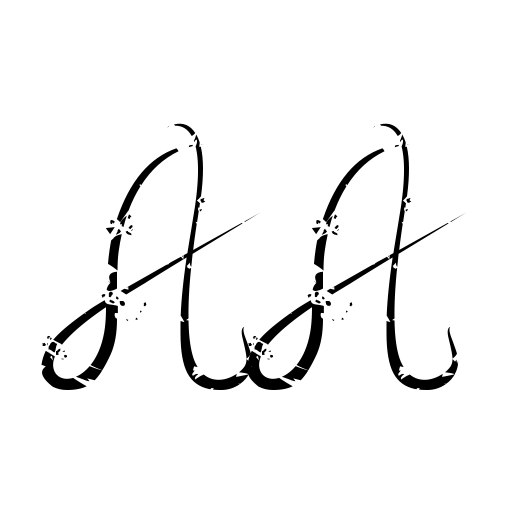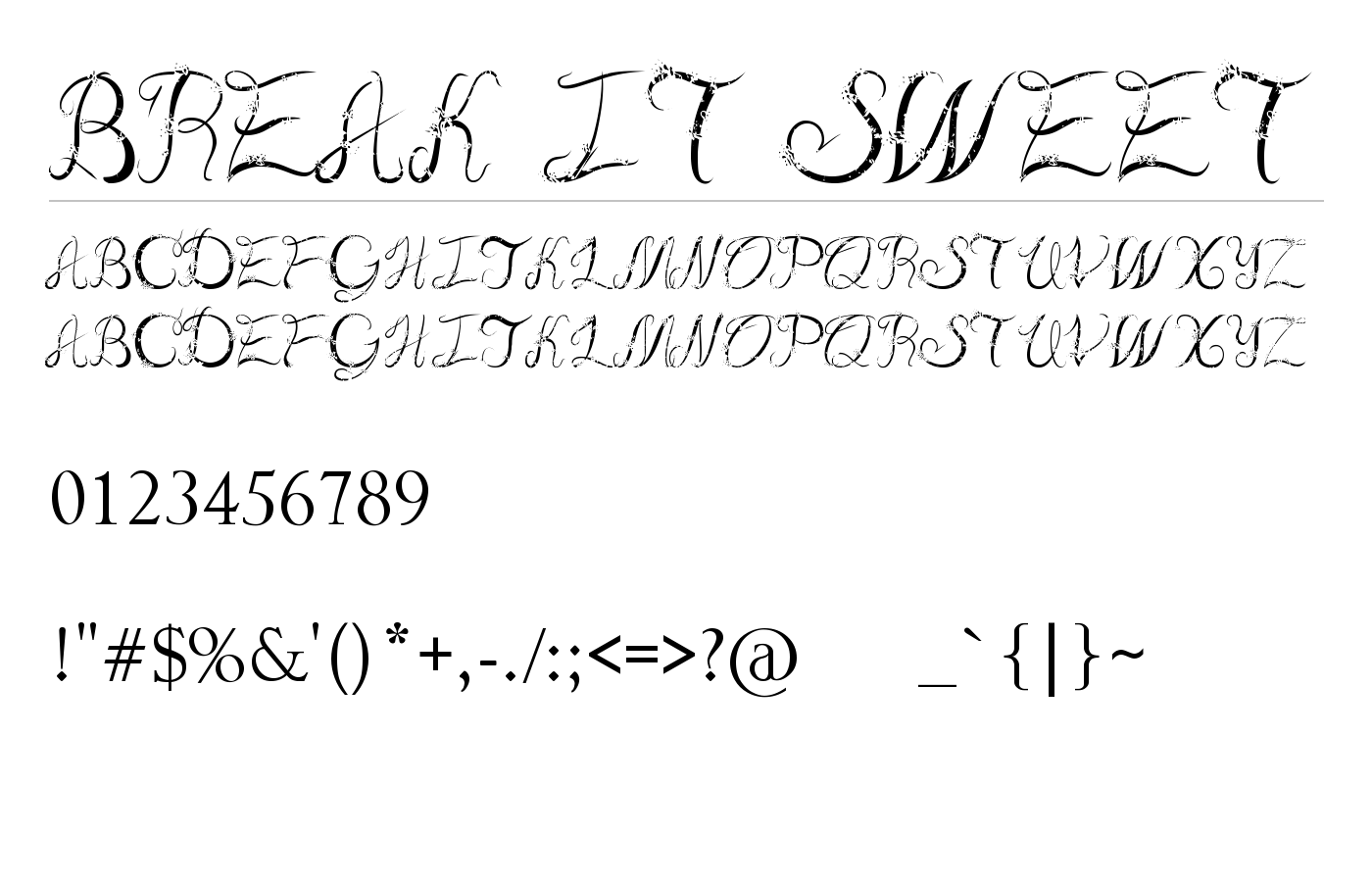
Break It Sweet is an elegant, distressed script font with delicate, flowing strokes and a vintage character. Its ornate, slightly eroded appearance gives it a charming, nostalgic feel, making it perfect for decorative use in branding, invitations, and packaging where a handcrafted, artistic touch is desired. This font works best in large display settings, adding a whimsical yet sophisticated vibe to creative projects.
Break It Sweet Font
About Break It Sweet Font